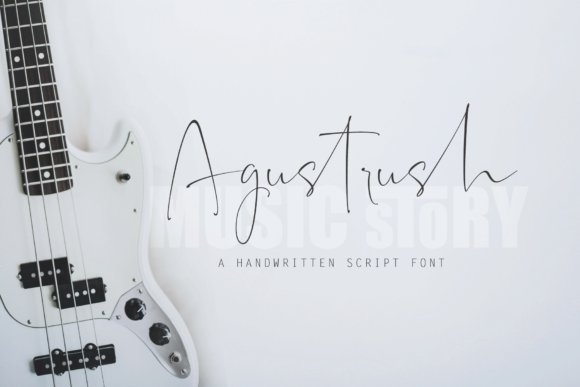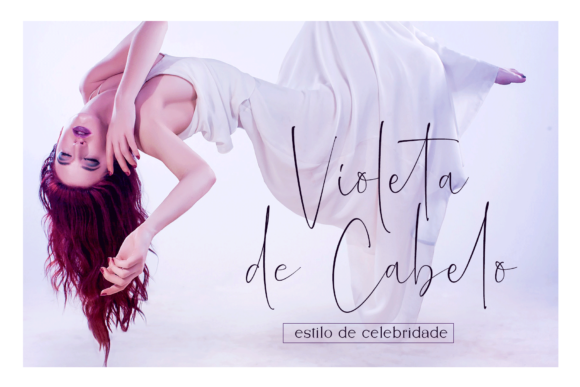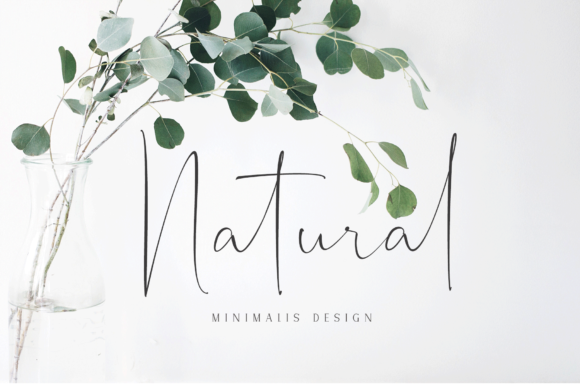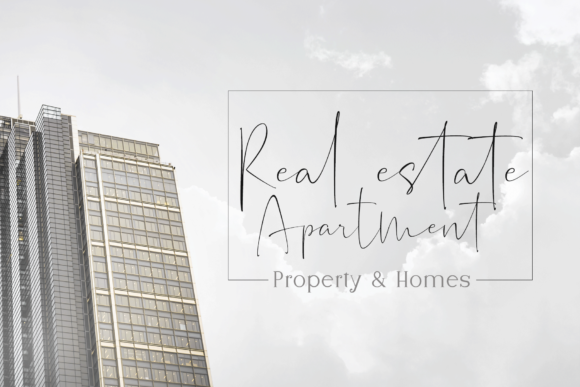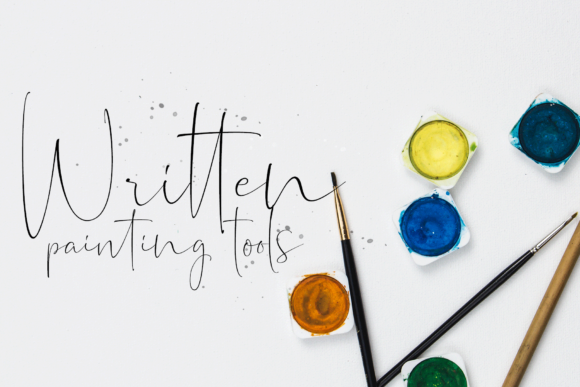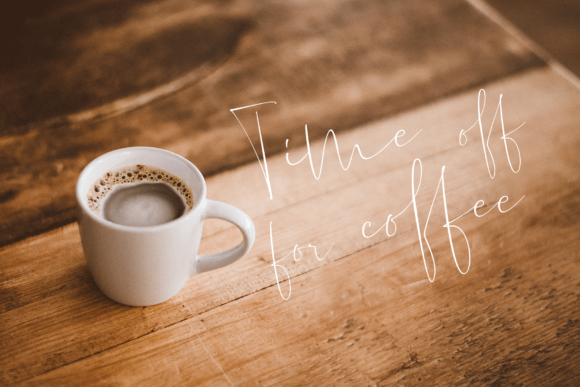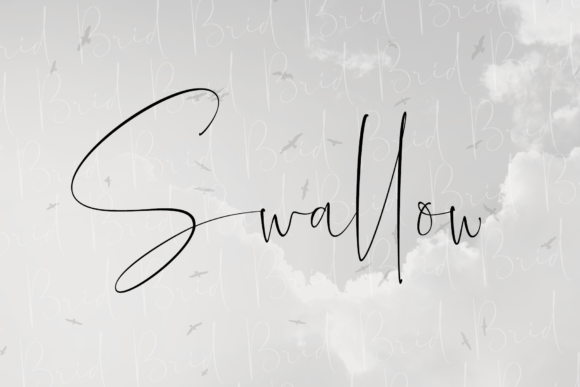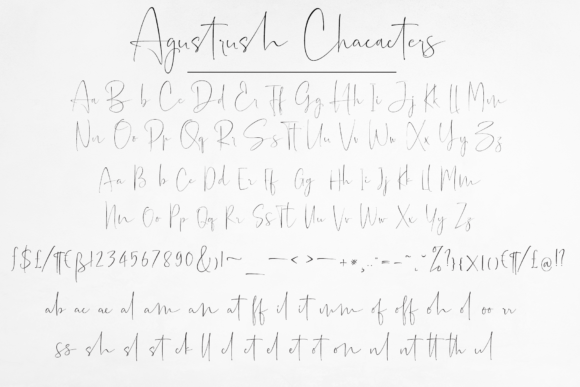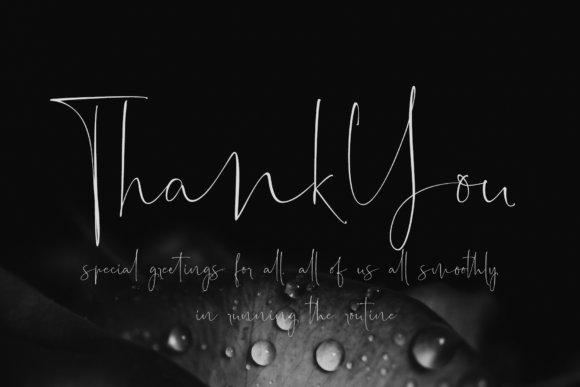
Agustrush Font
About Agustrush Font
Agustrush is a magical handwritten font carefully created with a touch of elegance. This is a beautiful combination of timeless elegance and authentic calligraphy. It features an incredibly classic style, while still keeping a friendly feel. Agustrush is the perfect font for making original and outstanding designs.